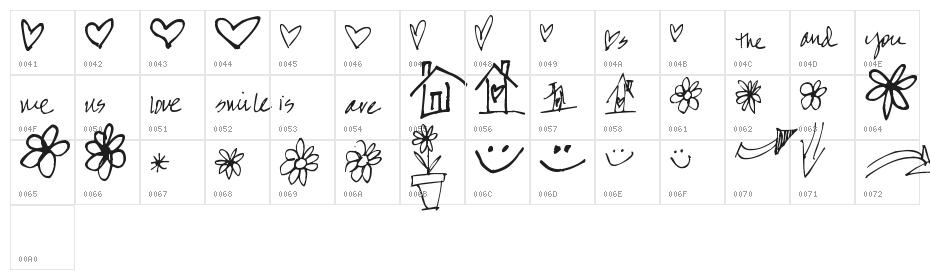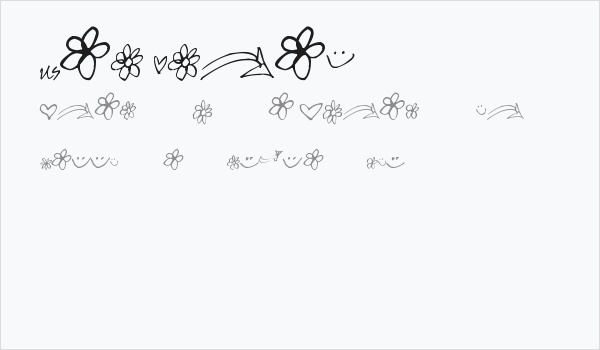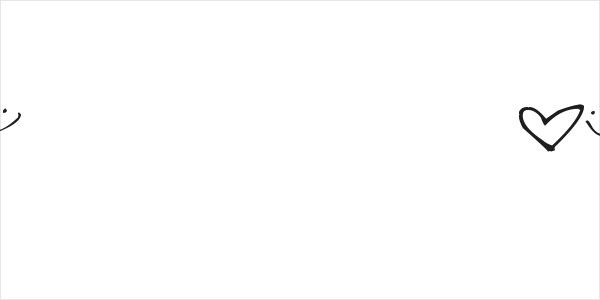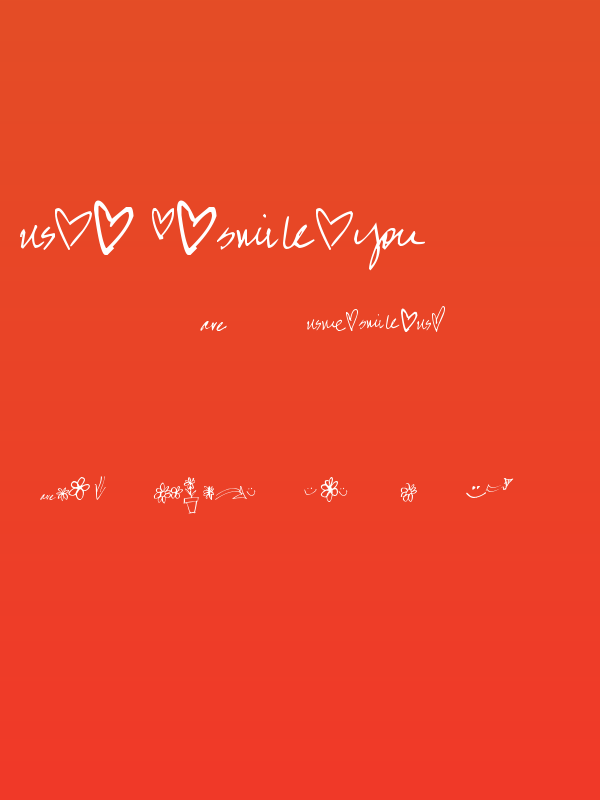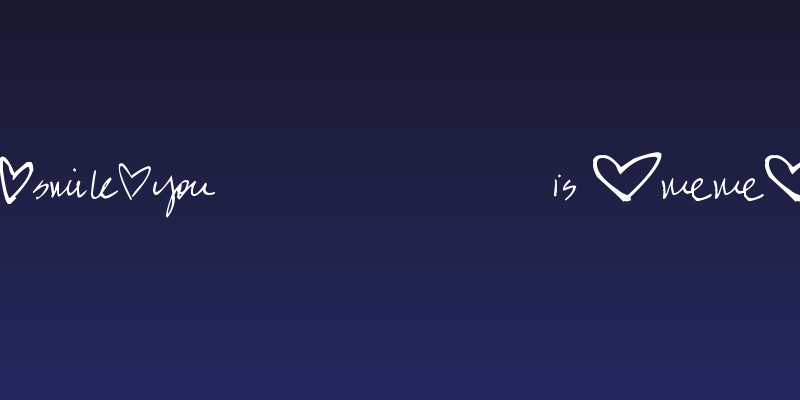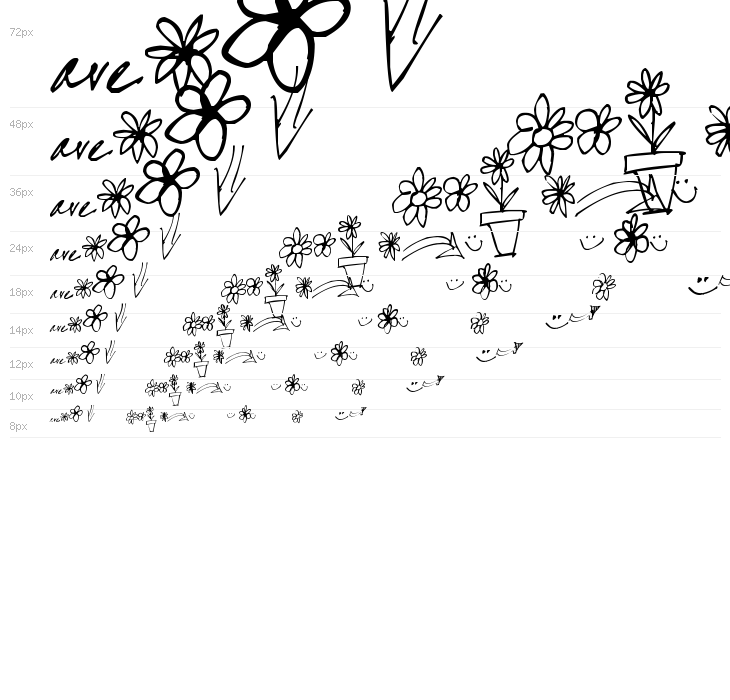
Pea Karen's Doodles Font
Pea Karen's Doodles Description
This playful and whimsical font features a series of hand-drawn doodles, including hearts, flowers, houses, and smiley faces. The style is casual and artistic, with a personal touch that resembles sketches in a notebook. The characters are irregular and varied, adding to the charm and uniqueness of the design. The font captures a sense of fun and creativity, making it ideal for projects that require a light-hearted and informal tone.
| Overall Style | Playful, Artistic |
| Use Case | Decorative elements, Informal text, Creative projects |
| Proposed Projects | Perfect for greeting cards, children's books, playful branding, and creative social media graphics. |